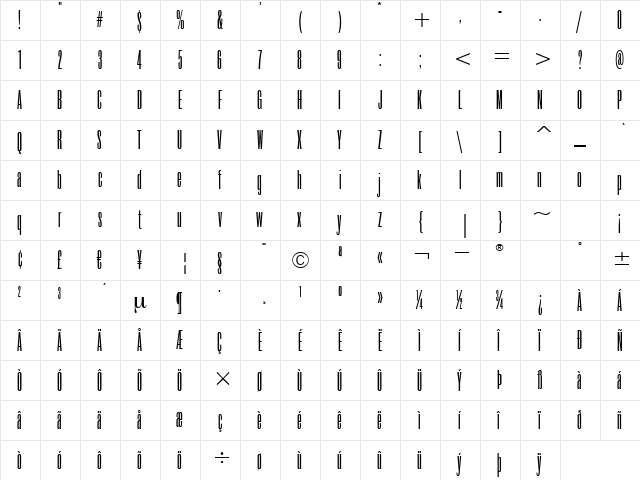
RoswellTwoITC TT Regular Font Preview
RoswellTwoITC TT Regular
| Foundry | International Typeface Corporation |
| Designer | Jim Parkinson |
Design Context for RoswellTwoITC TT Typeface
RoswellTwoITC TT is a composed and adaptable typeface that performs quietly and consistently across a wide range of design contexts.